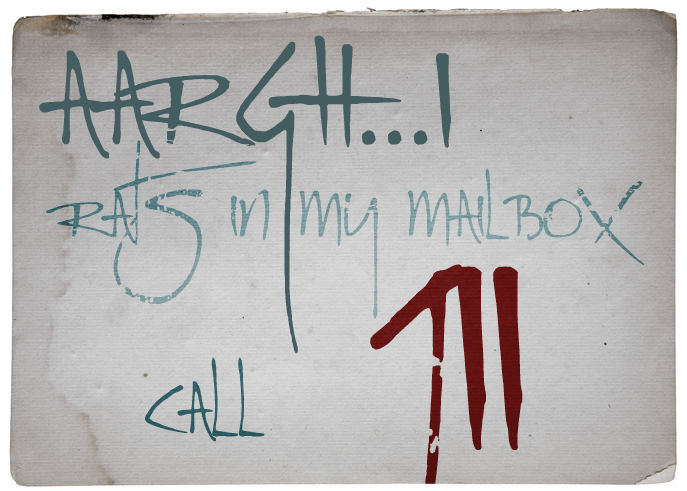
Free Rat Infested Mailbox Font
Featuring a free rat infested mailbox font. Font Space has created this amazing and beautiful free font. Easily amaze your audience with this fancy font and make your graphic designs pop up from the crowd.